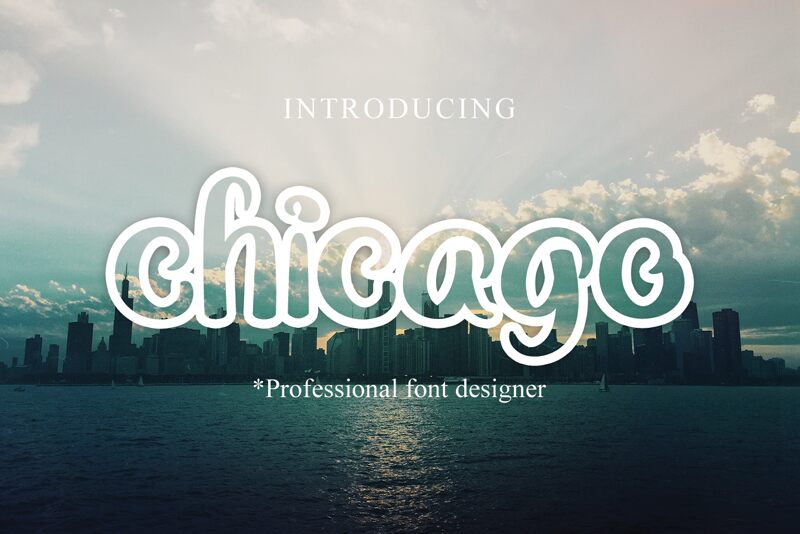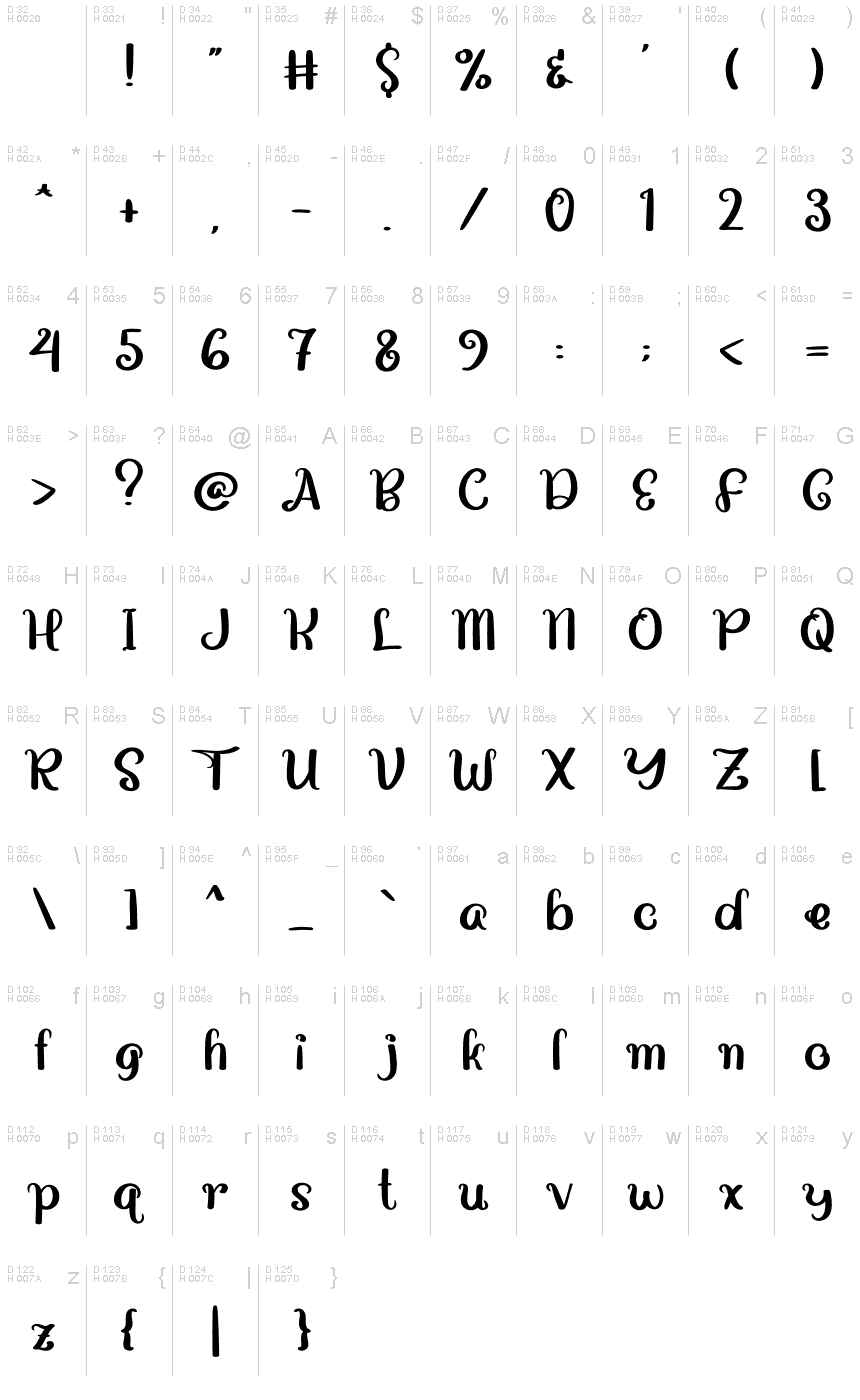
Chicago
Chicago is a cute and chic script font designed by Erik Studio. It embodies playfulness and authenticity and is the perfect choice for any project that requires a joyful touch.